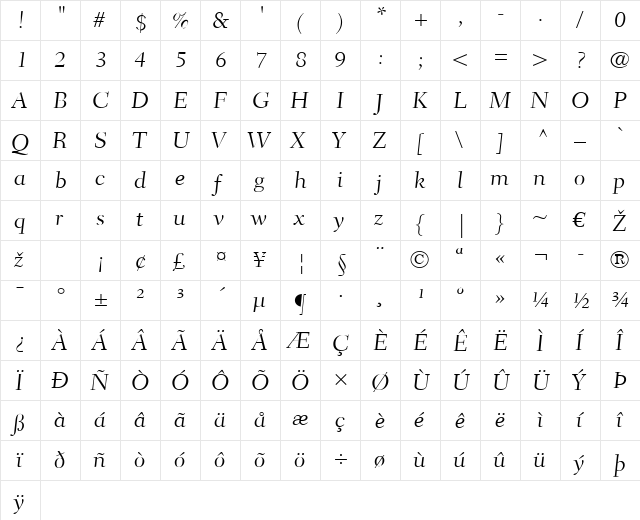
Fairfield LT CaptionLight Regular
Design Context for Fairfield LT CaptionLight Typeface
Fairfield LT CaptionLight offers clean, dependable letterforms without strong stylistic allegiance, making it a practical choice for designers who need flexibility. Its slender proportions lend an understated elegance to any composition.